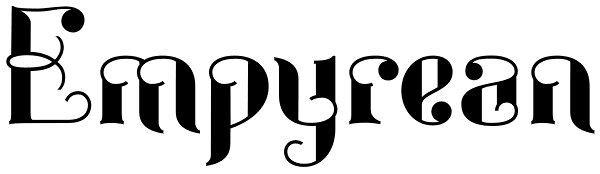
Empyrean
Empyrean is a display Roman typeface which sets out to be deliberately different. Its letterforms explore white space and the art of leaving things out. Empyrean is a futuristic Roman design which builds in respect for typographic tradition with an...